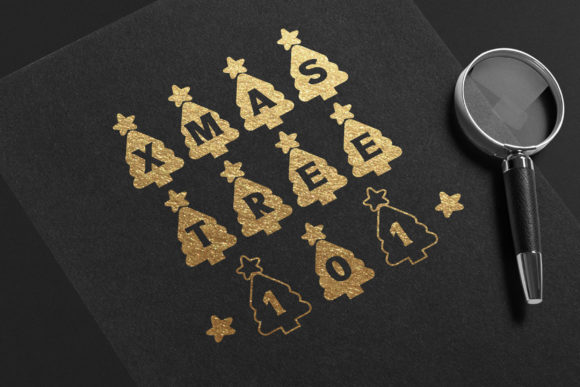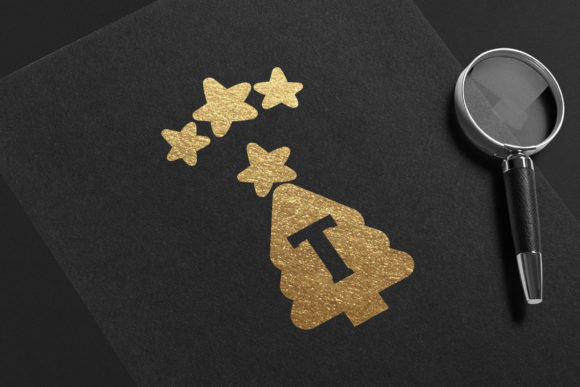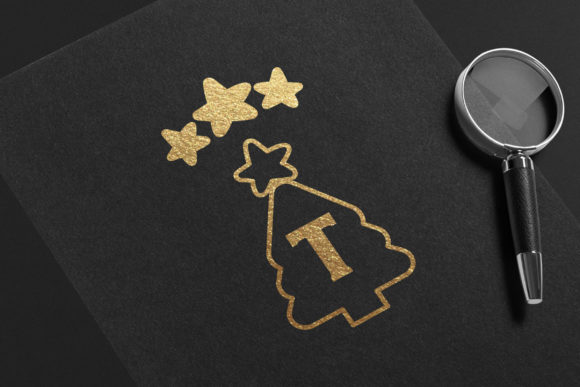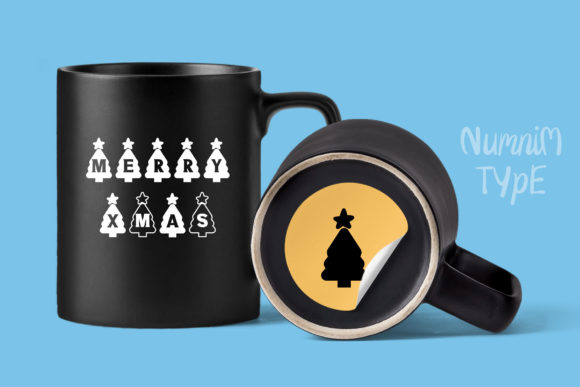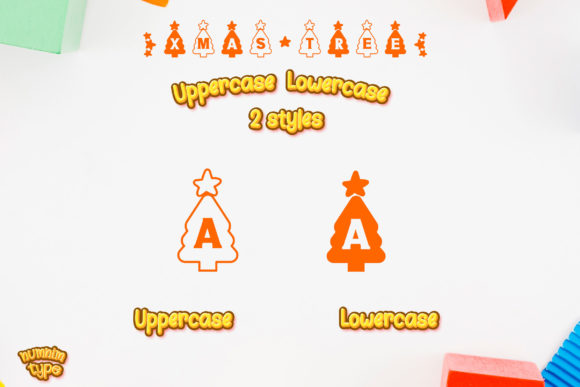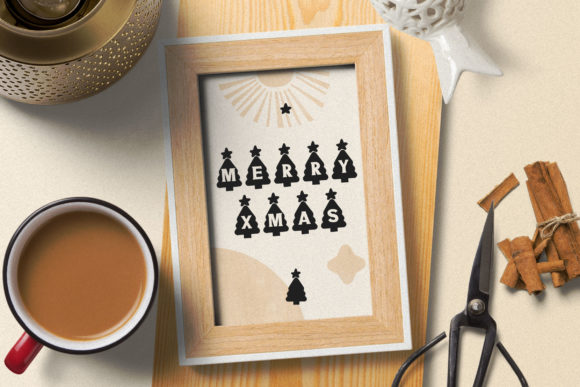
The Magic of Christmas Tree Font: A Designer’s Delight
It’s that time of the year again – the season of joy, giving, and of course, designing! I still remember the year I was tasked with creating a festive holiday card for a client’s family. I spent hours scouring through font libraries, searching for the perfect one that would capture the essence of the season. That’s when I stumbled upon the Christmas Tree font, and it instantly became my go-to for all things holiday.
An Honest Review of Christmas Tree Font
So, what makes Christmas Tree font so special? Let’s dive into the good stuff! 🤔
• ✨ Festive and joyful vibe that’s perfect for holiday designs
• ✅ Highly versatile and can be used for a variety of projects, from wedding invitations to holiday cards
• 🎉 Beautifully crafted with intricate details that add a touch of elegance to any design
• 👍 Easy to read and understand, even in smaller font sizes
• ⚠️ Some users may find the font a bit too ornate for certain projects
• 🤔 Limited availability of certain characters and glyphs, which may require some creative workarounds
The Story Behind Christmas Tree Font
Christmas Tree font was designed by a team of creative typographers who wanted to capture the magic and wonder of the holiday season. Inspired by traditional holiday decorations and typography, they crafted a font that’s both festive and elegant.
Q: What type of projects is Christmas Tree font best suited for?
A: Christmas Tree font is ideal for holiday designs, such as cards, invitations, and posters. It’s also great for creating festive social media graphics and website headers.
Q: Is Christmas Tree font available in different languages?
A: Yes, Christmas Tree font supports multiple languages. However, character sets and glyph availability may vary, so be sure to check the font’s specifications before use.